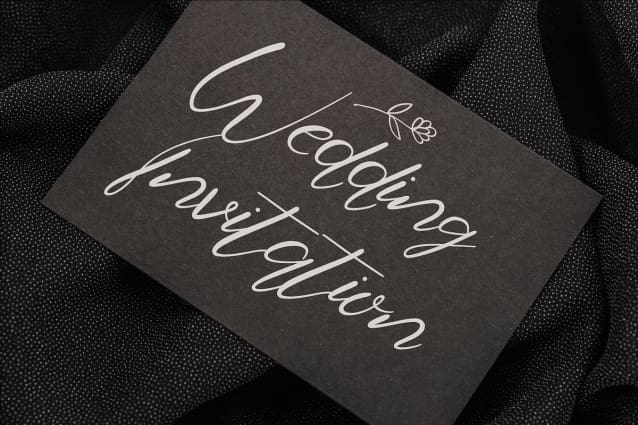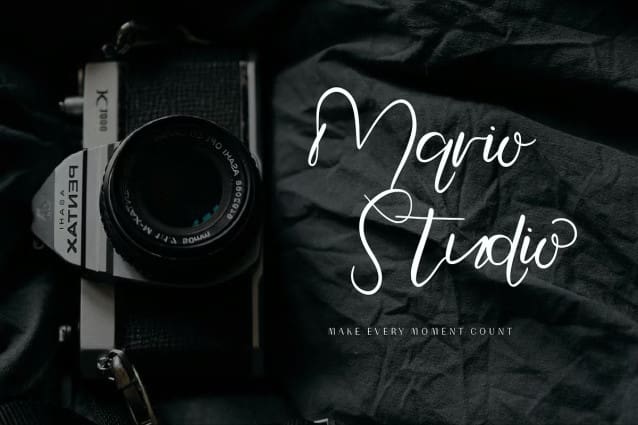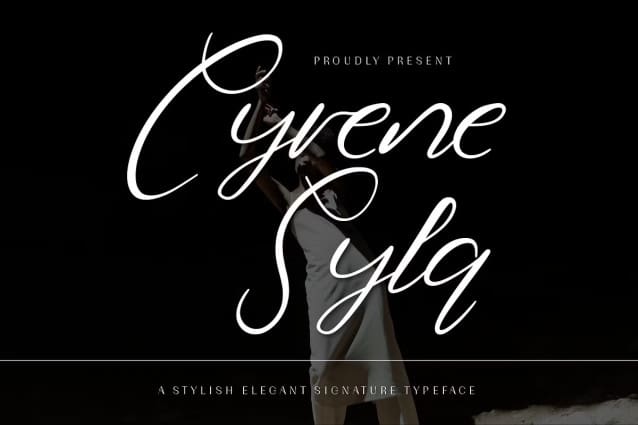
Cyrene Syla Font
Cyrene Syla Font is a luxurious and stylish signature font that exudes elegance and sophistication. Featuring graceful, thin strokes and fluid, handwritten forms, this typeface captures the essence of refined luxury and timeless beauty. Its sleek design makes it the perfect choice for high-end branding, wedding invitations, fashion logos, and more. With its modern yet elegant appeal, Cyrene Syla will elevate your designs, creating an impression of charm and exclusivity.